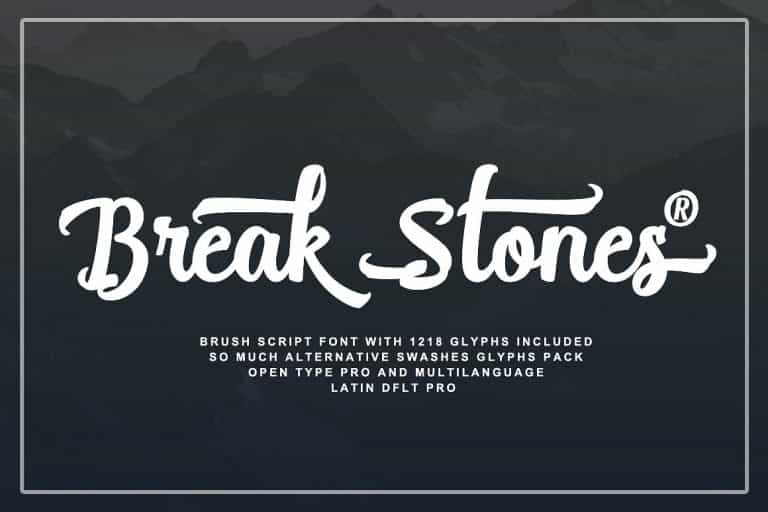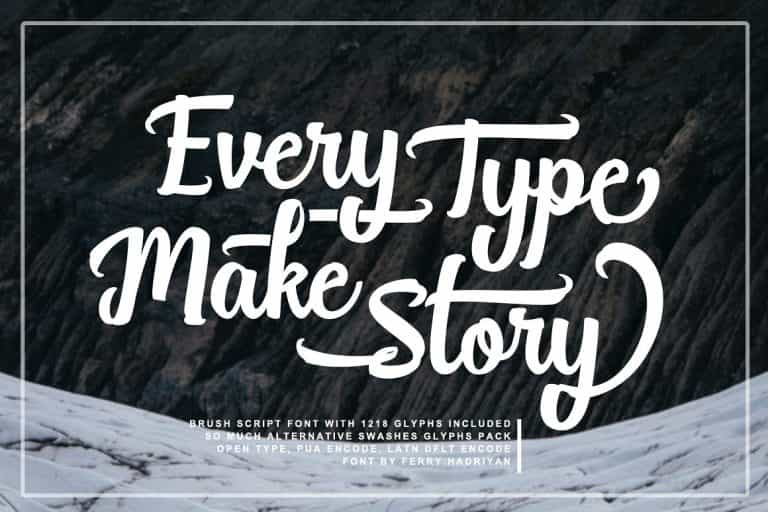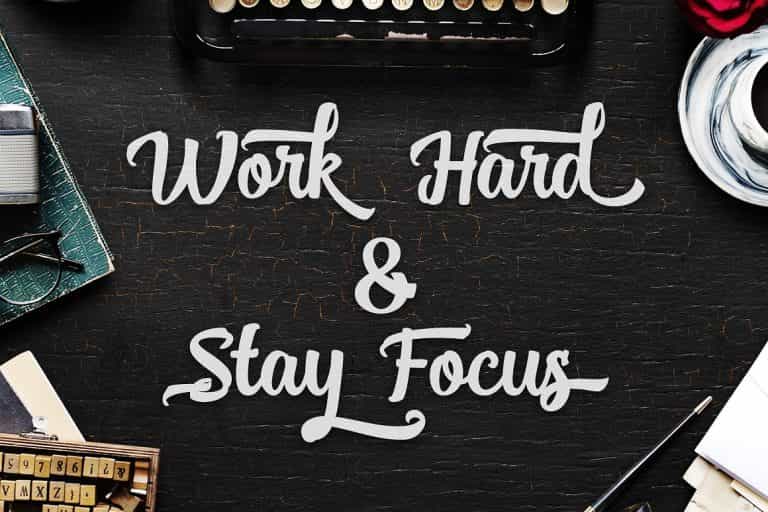
Discover Break Stones Script Brush Font, part of the Brush Calligraphy collection—a versatile and unique font perfect for adding a personal touch to your projects. Download it for free and enjoy crafting designs with style, from invitations to social media posts. This font is available exclusively for personal use, giving you the freedom to create without limits. Unlock your creativity with Break Stones Script Brush Font today!
Meet Break Stones. Created and submitted by FeyTypeDesign. Break Stone is a stance brush font with 1218 Glyphs and so many opentype features. good for design element design, wedding, event, t-shirt, and logo making as well as sticker and badge design.